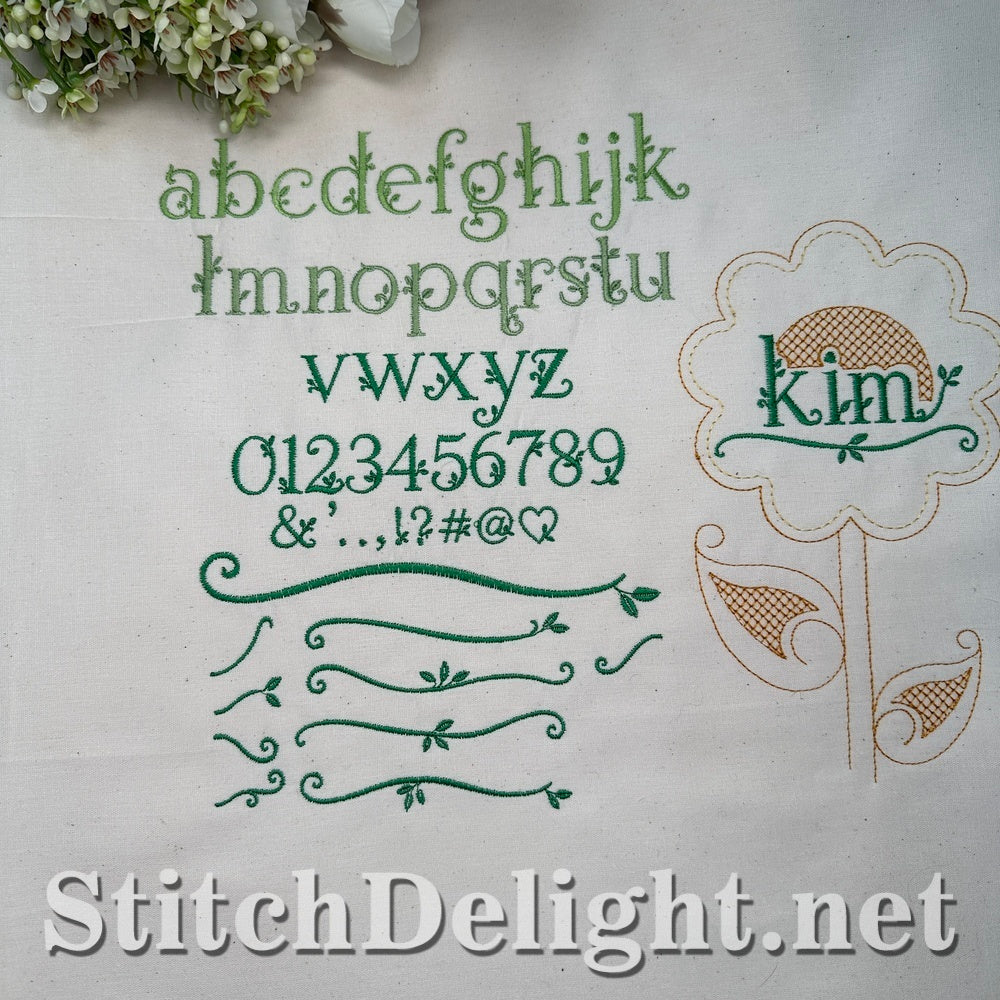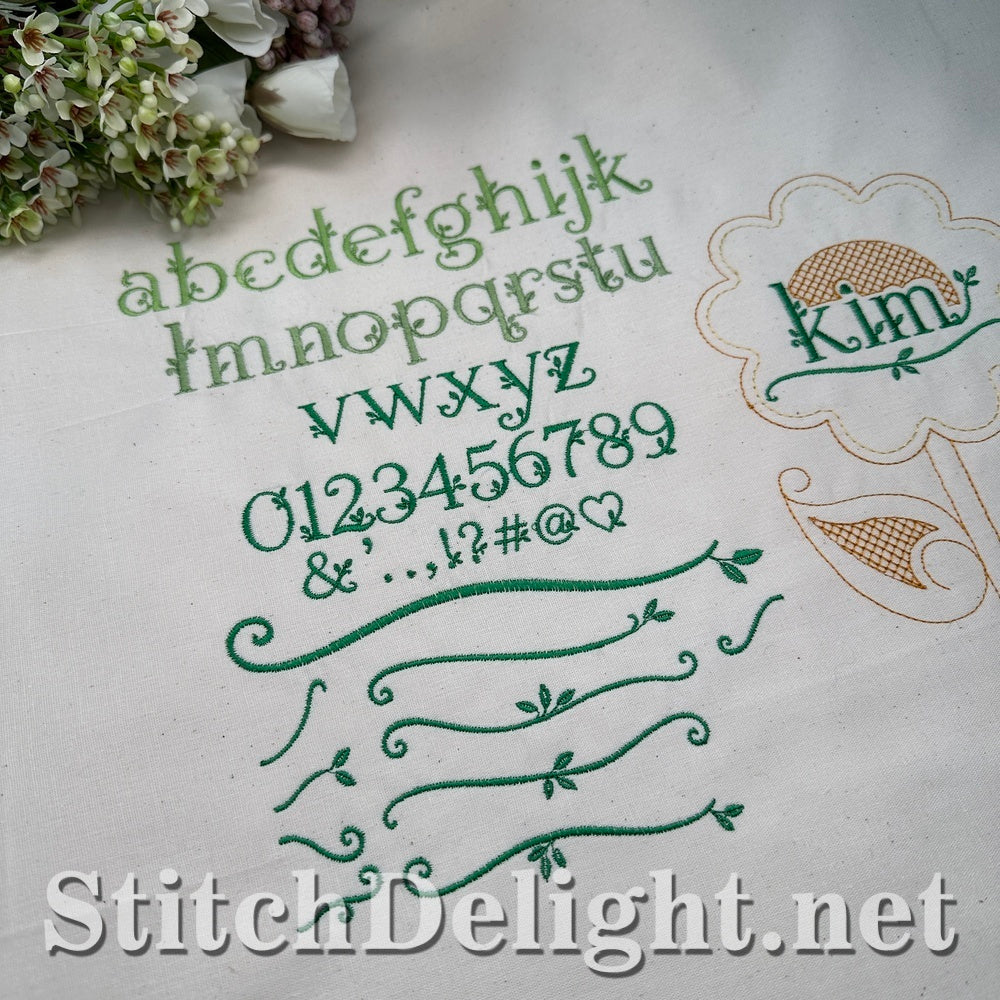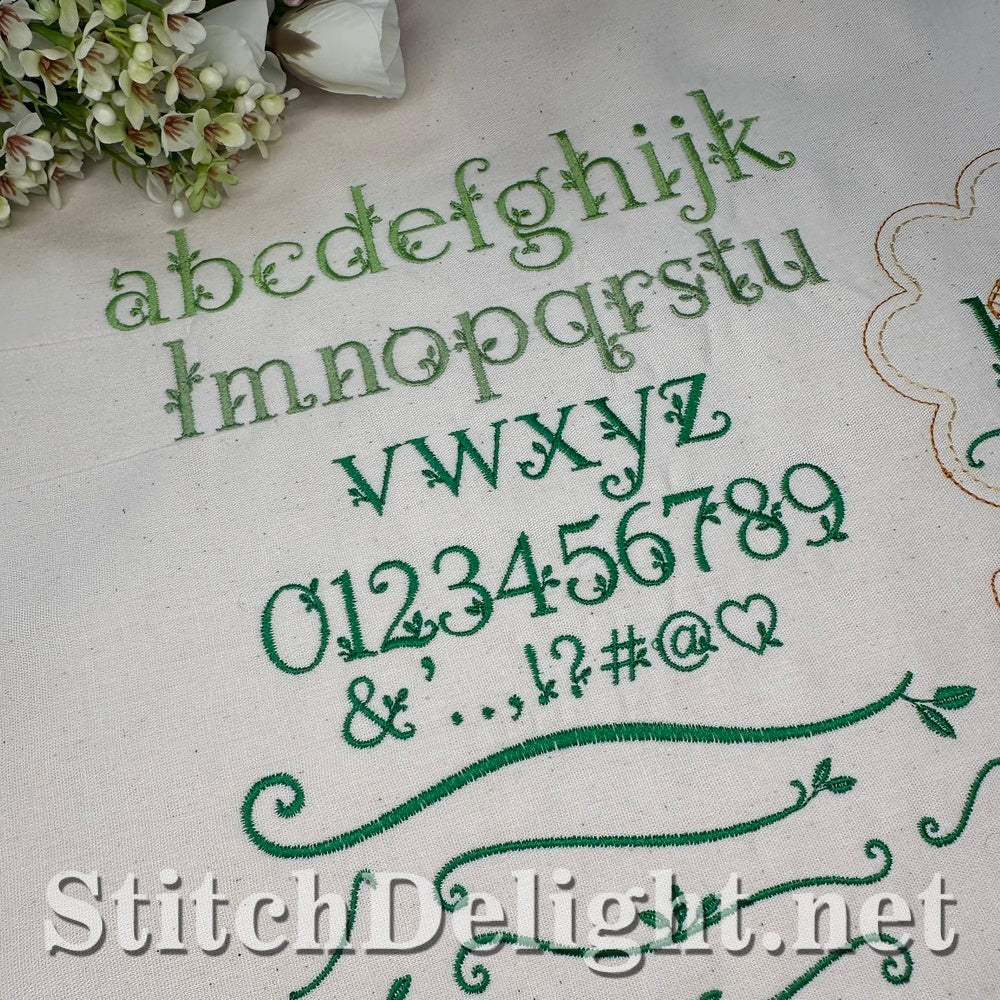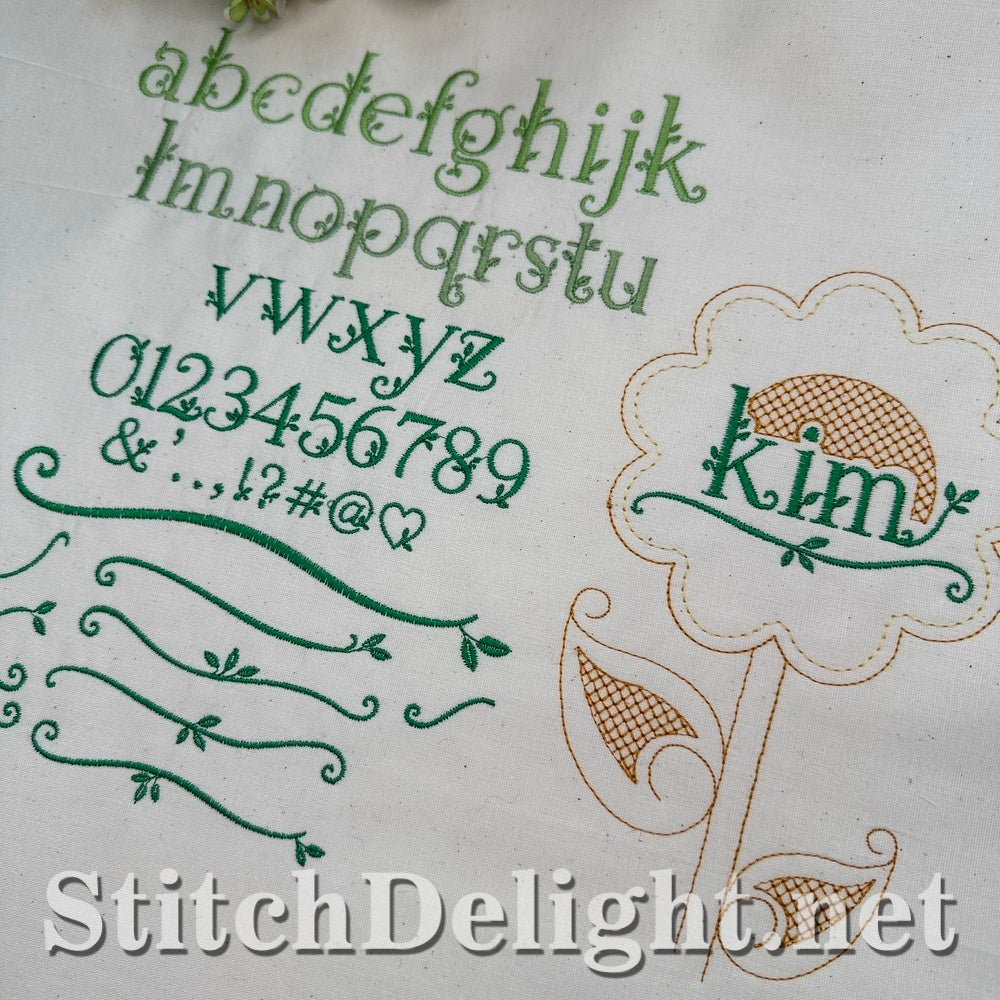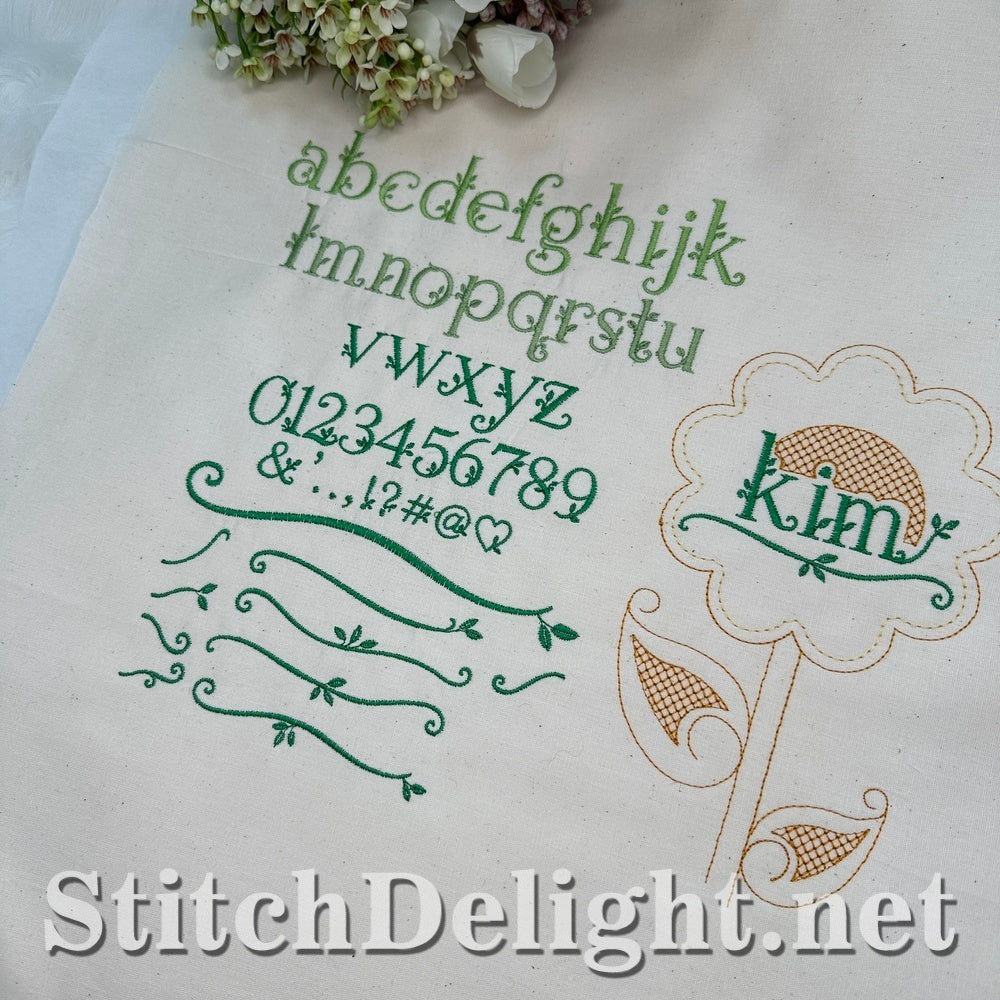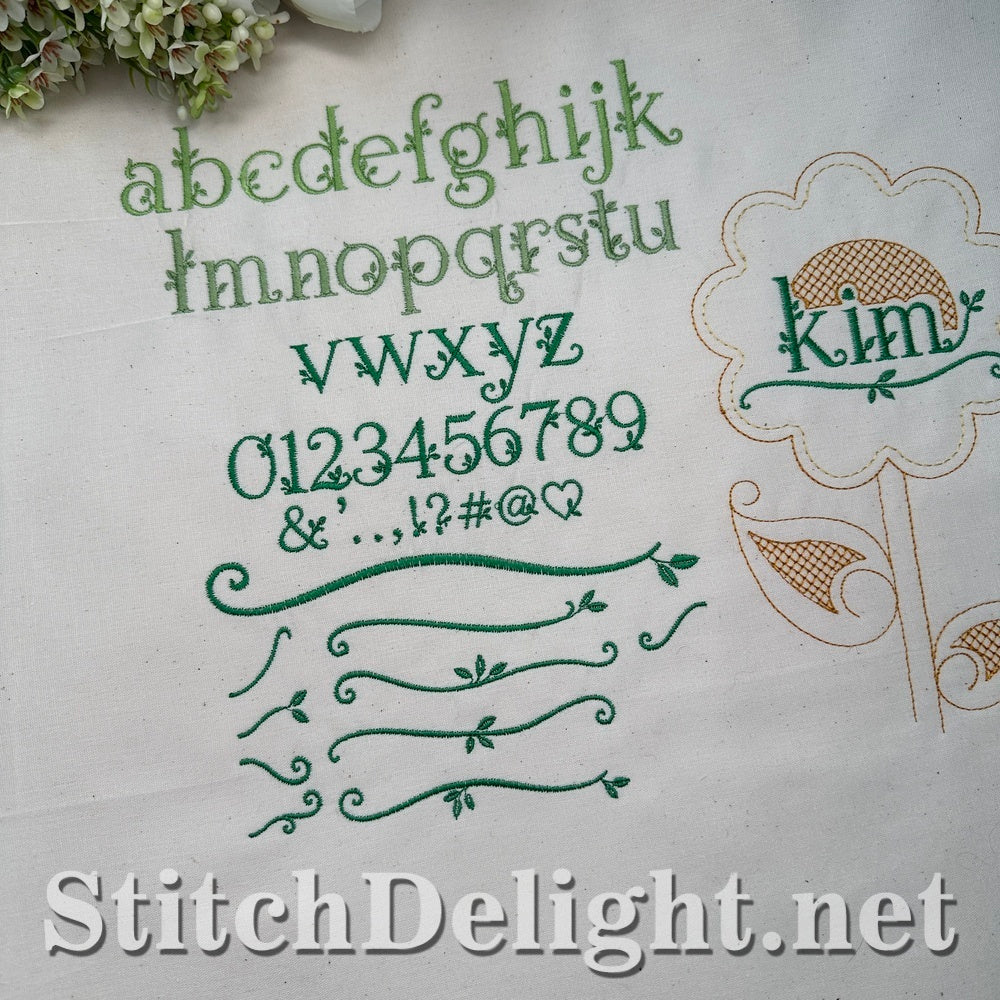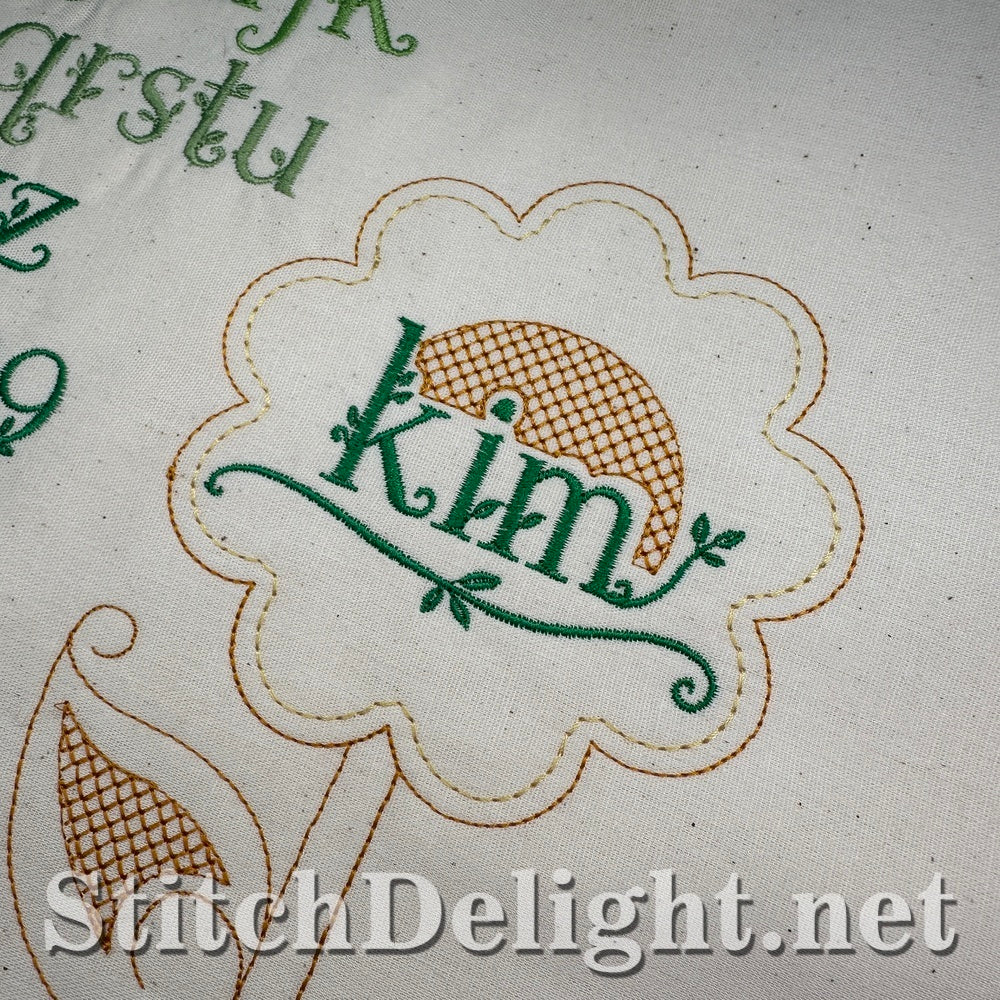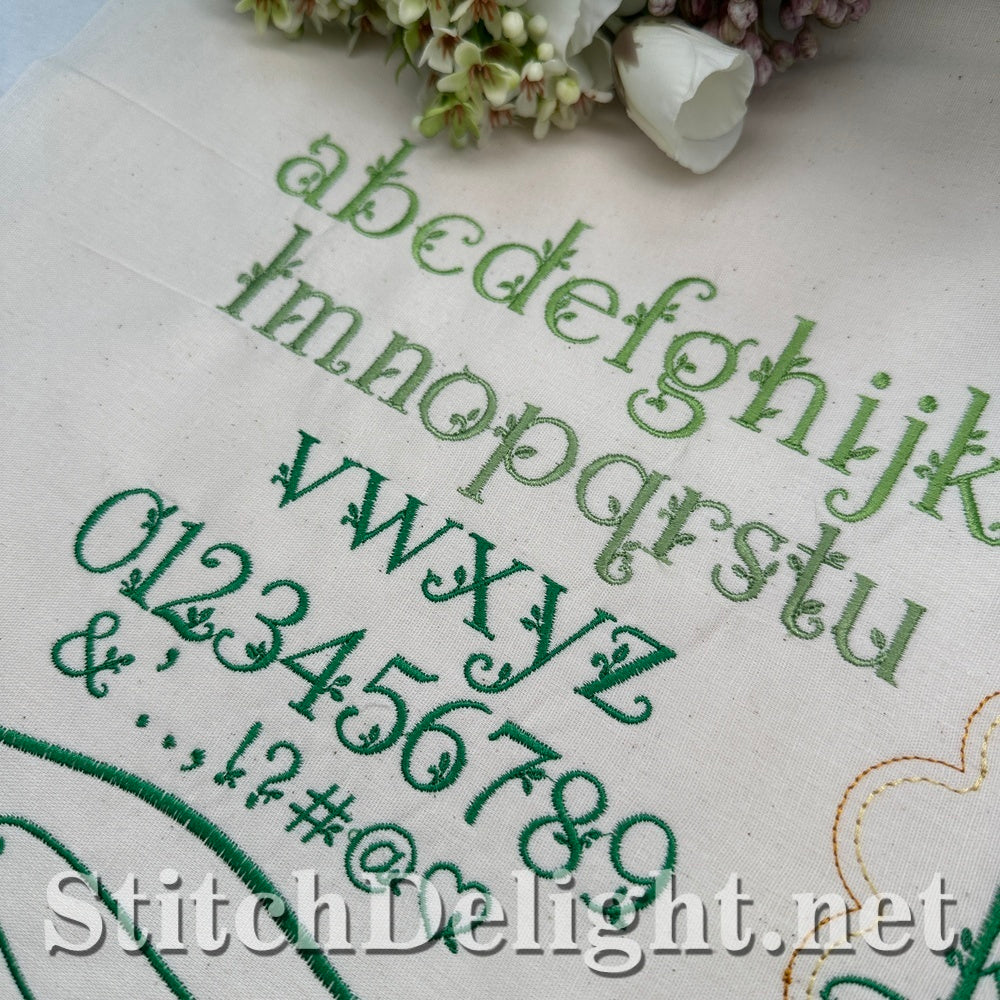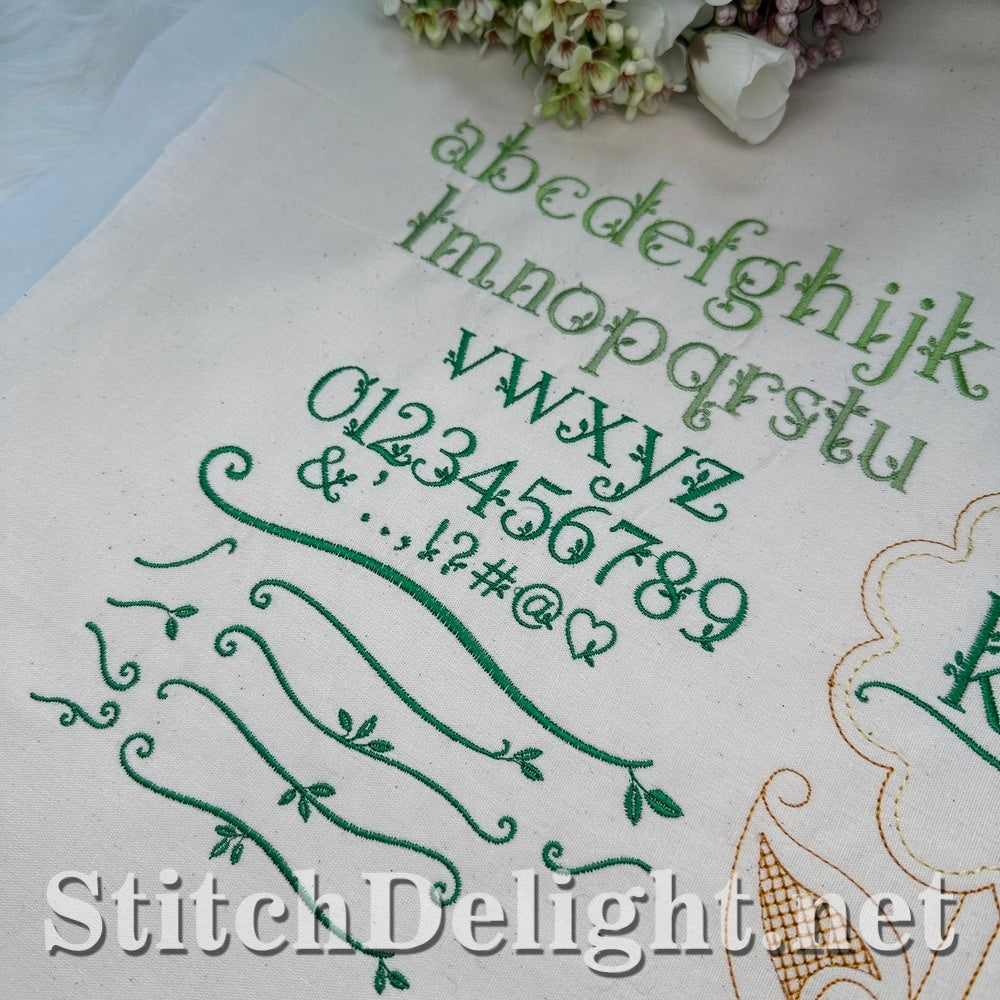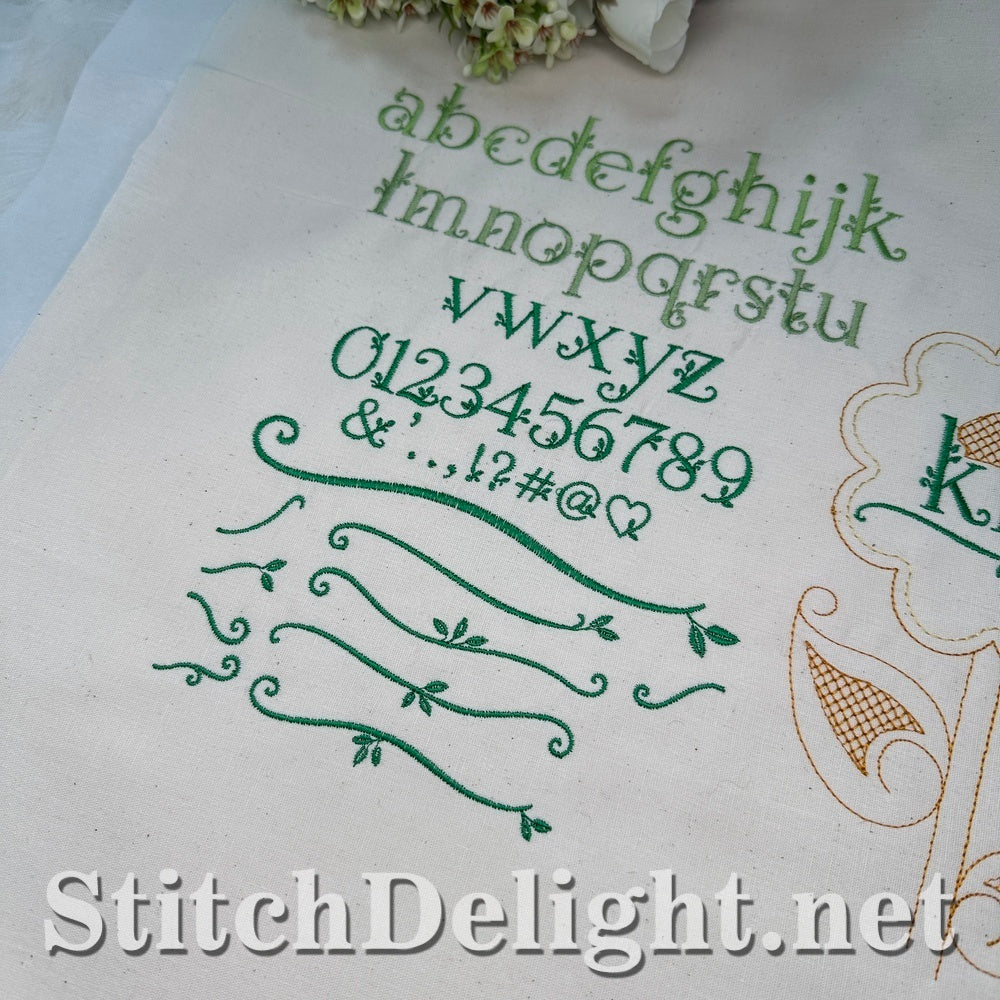
Create beautiful personalized embroidery with the Stitch Delight Blooms Embroidery Font. This elegant botanical embroidery alphabet features delicate leafy accents that give every letter a graceful floral appearance. Ideal for monograms, names, towels, baby gifts, home décor, quilt labels, table linens, bags, garments, and heirloom embroidery projects.
The font includes lowercase letters, numbers, punctuation, decorative flourishes, and embellishments, making it easy to create coordinated embroidery designs for every occasion. Most letters stitch at approximately 1.3 inches tall, making them perfect for small personalized projects while fitting comfortably in a standard 4x4 embroidery hoop. Larger decorative flourish borders fit popular 5x7 and 6x8 hoops.
Professionally digitized for clean stitching, this floral embroidery alphabet is suitable for beginners and experienced embroiderers alike. Whether you're personalizing gifts, creating elegant wedding keepsakes, decorating nursery items, or adding custom names to quilts and home décor, Blooms Font offers timeless botanical charm with exceptional stitch quality.